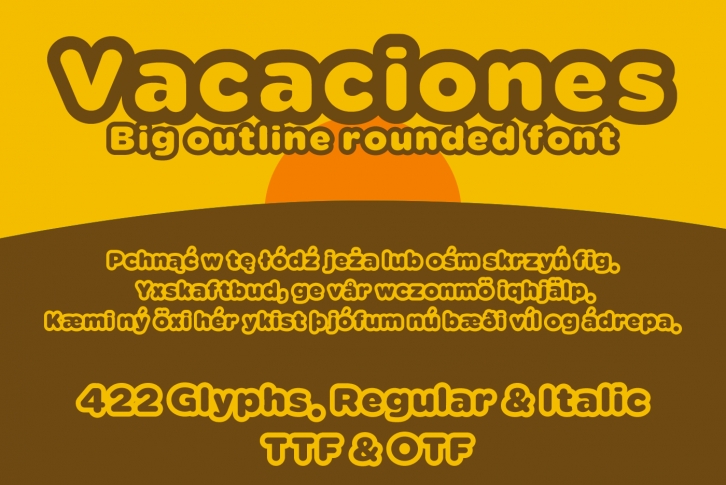
Vacaciones is a bold display font with excellent readability. It is ideal for graphic design, advertising brochures, posters, banners, or editorial projects. Add this beautiful display font to each of your creative ideas, and notice how it makes them stand out!